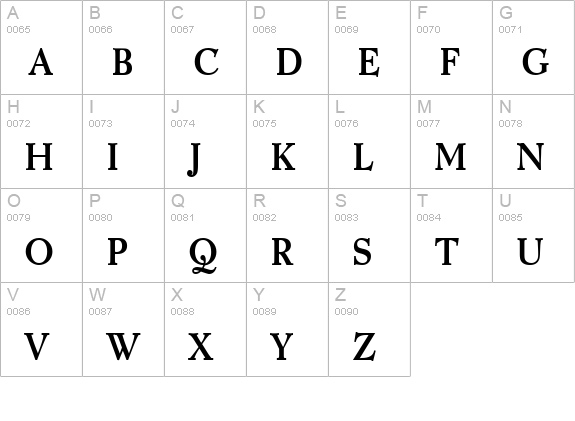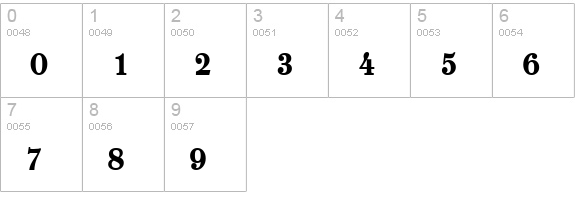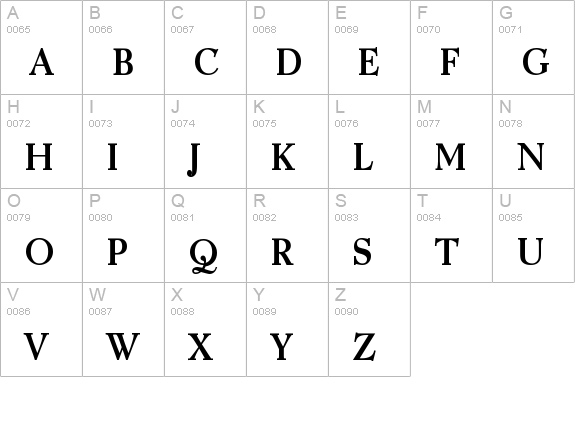
Luciano Condensed Bold is a strong, high-contrast, condensed-width variant in the Luciano typeface family \xE2\x80\x94 well suited to headlines, attention-grabbing titles, and strong calls-to-action.
Luciano Condensed Bold font is a modern and stylish typeface that exudes confidence and sophistication. Its bold and condensed design makes it perfect for creating impactful headlines, posters, and branding materials. The strong lines and sharp edges of this font command attention and elevate any design project. Best of all, Luciano Condensed Bold font is available for free download at FontsMarket.com. Now you can add a touch of elegance to your creations without any cost, making it a valuable addition to your font collection. Don't miss out on this opportunity to enhance your designs with the striking beauty of Luciano Condensed Bold font.